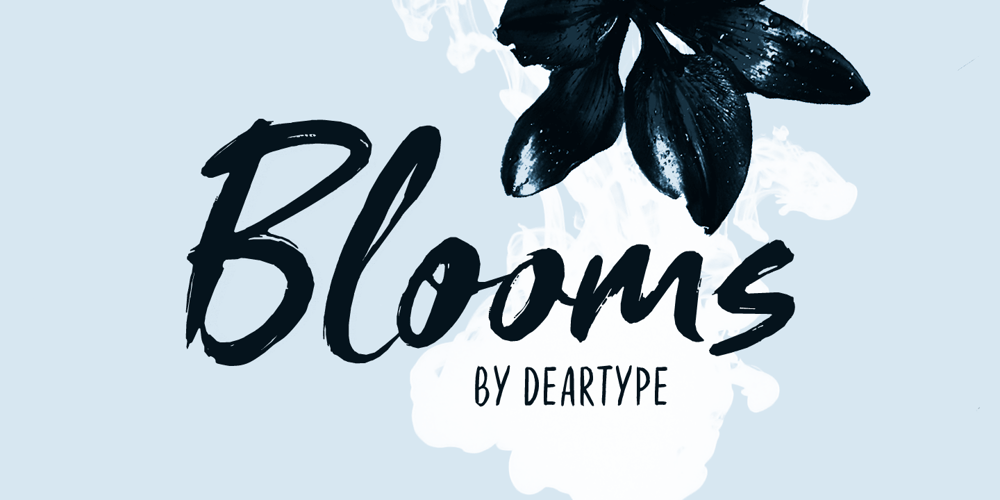
Blooms
Blooms font
Blooms Font Family was designed by Veneta Rangelova and published by DearType. Blooms contains 4 styles and family package options. Say hello to Blooms – an edgy, brush script with lots of attitude! All handmade and then vectorized, Blooms is the perfect mix between sexy and serious. The script is made in two variations – one rough and one smooth for a more sleek look. The Blooms family comes with some great additions to support the script – a thick headline font for the ultimate impact and a narrow tagline font for more hand-style expression. Urban, modern and full of personality, Blooms is perfect for various occasions. Wedding invitations, T-shirts or cards, Instagram photos or interactive designs, it covers it all. Throw some ligatures and stylistic alternates on top of that and you have yourself a multipurpose family.